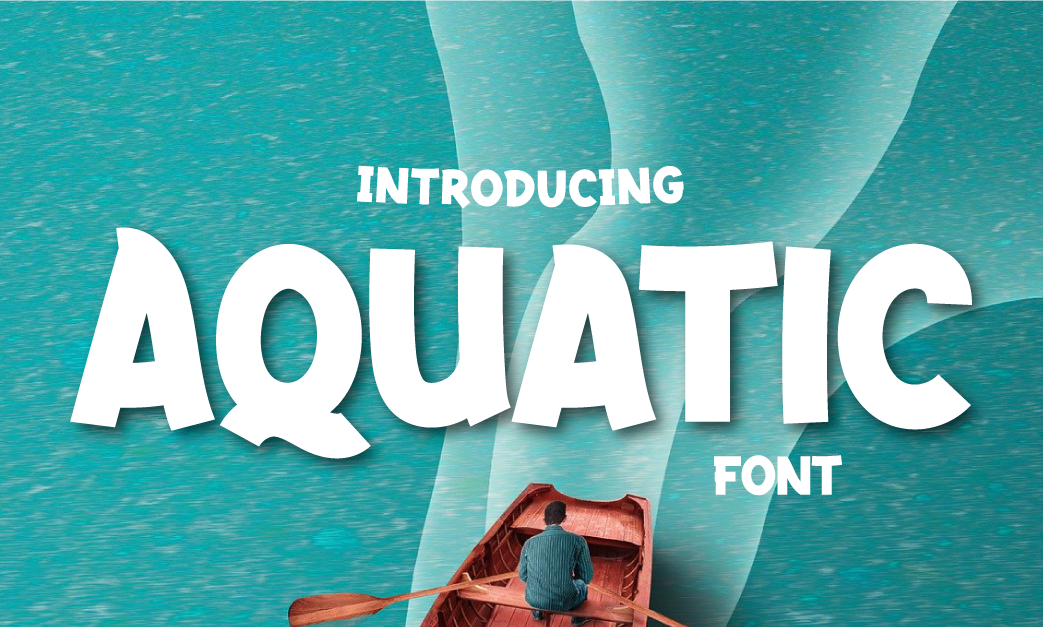
Aquatic Font
Aquatic is a cute and cartoon like display font. This font is perfect for children themed designs, especially when combined with bright colors.
This font also has the beauty of abstract typography harmony for a wide variety of design projects, including digital natural handwriting for designs, quote designs, for social media business designs, advertisements, trademarks, food and beverage promotion banners, text, posters, signatures, and all designs require handwriting or whatever design you want.